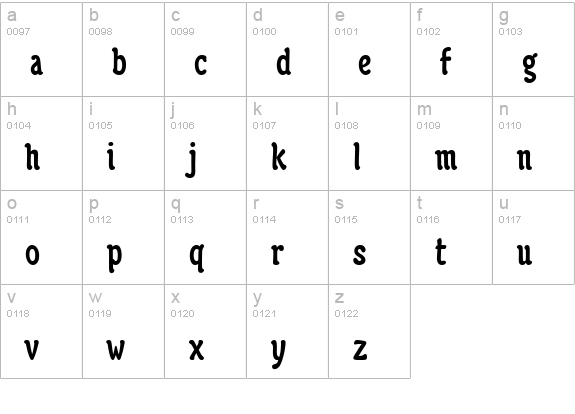
TLTheatreAntoine Font Details
TLTheatreAntoine is a stunning and elegant font that brings a touch of sophistication to any design project. With its graceful lines and timeless appeal, this font is perfect for creating eye-catching logos, posters, invitations, and more. The beauty of TLTheatreAntoine lies not only in its aesthetics but also in its versatility. Whether you're designing for a high-end fashion brand or a cozy cafe, this font will effortlessly elevate your creations to new heights. But what makes TLTheatreAntoine truly special is that it is available for free download at FontsMarket.com. That's right, you can add this exquisite font to your collection without spending a dime. Whether you're a professional designer or a passionate hobbyist, this generous offer allows you to access a top-quality font without breaking the bank. So why wait? Head over to FontsMarket.com and discover the magic of TLTheatreAntoine. Let this font be the secret weapon in your design arsenal, helping you create captivating and memorable pieces that leave a lasting impression. Don't miss out on this opportunity to enhance your creative projects with a font that is both timeless and freely available.